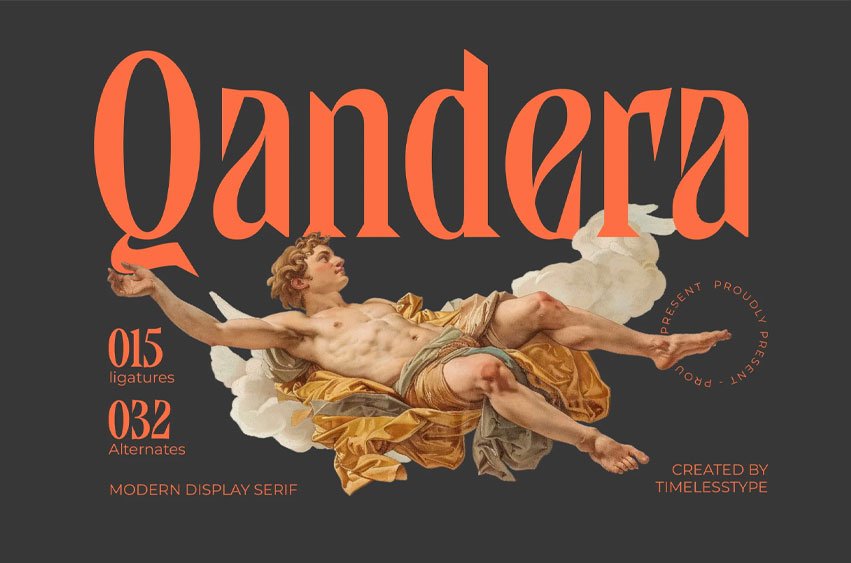
Qandera Font is a modern display serif font with bold elegance and artistic curves, designed to bring a sense of luxury and sophistication to your projects. Featuring ligatures and creative alternates, this typeface is perfect, posters, invitations, packaging, branding, and editorial layouts.
With its strong visual presence and refined details, Qandera is a versatile font for both digital and print designs, adding creativity and elegance to every composition.